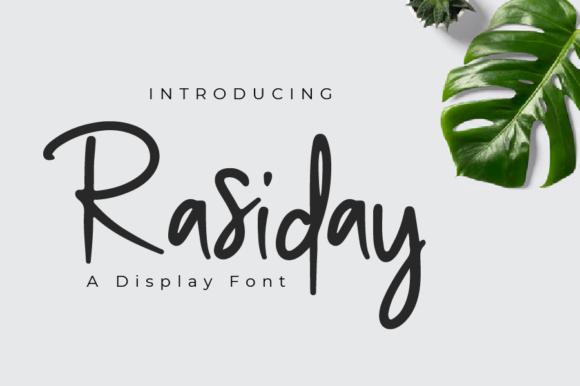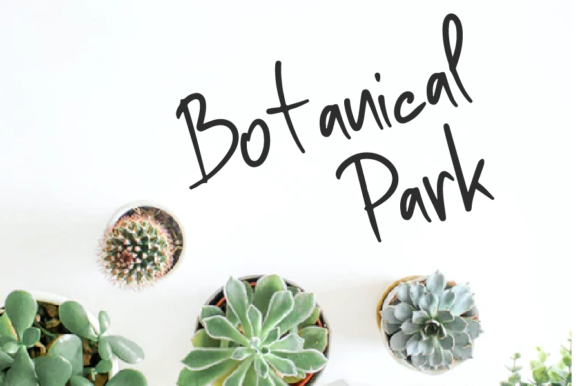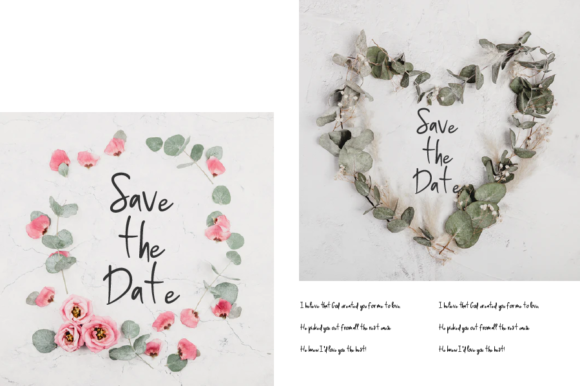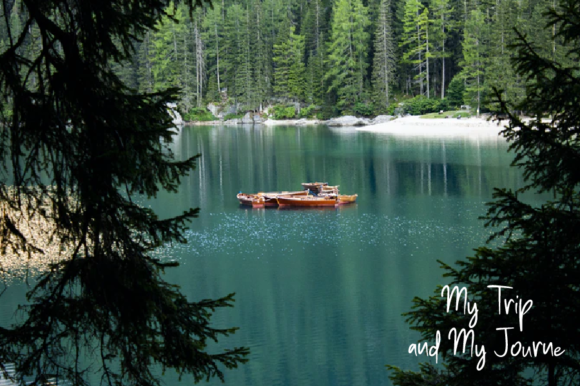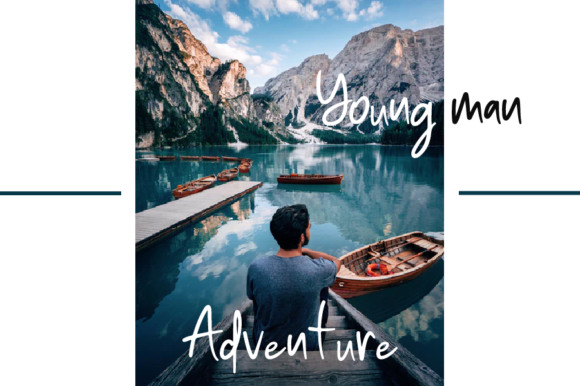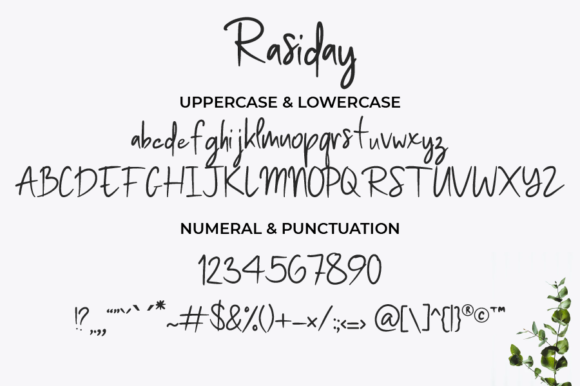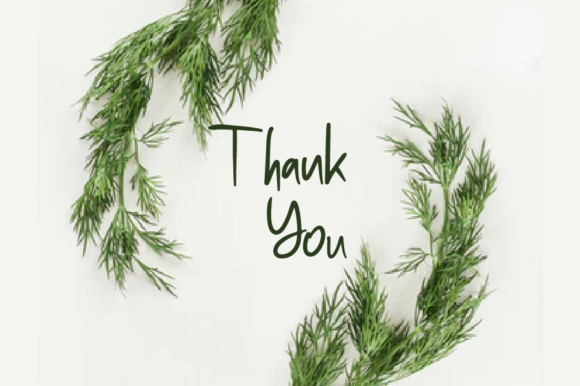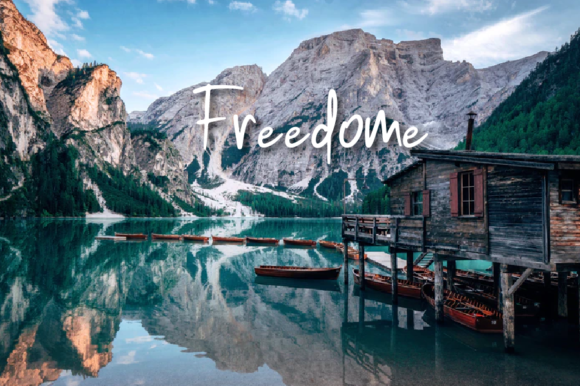
Rasiday is a genuine and relaxed handwritten font. This font is suitable for logotypes, weddings, titles, watermarks and many more designs that require a personalized yet casual touch.